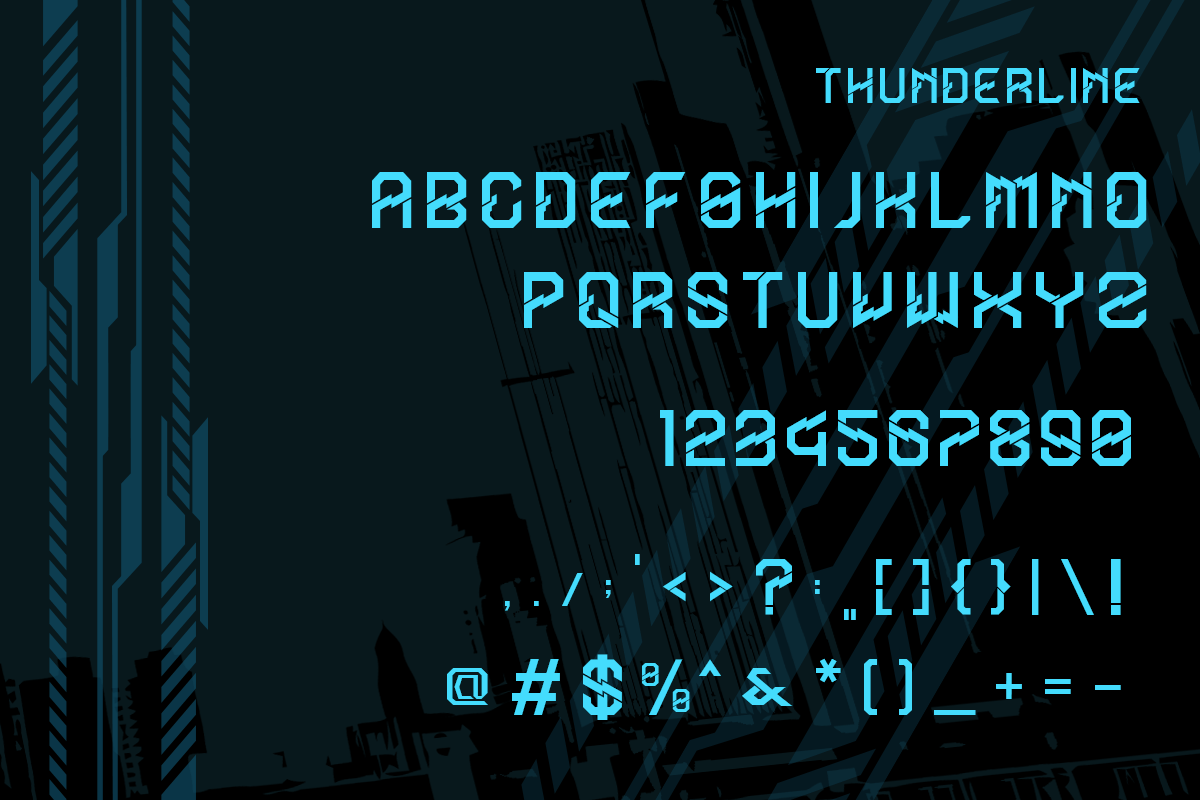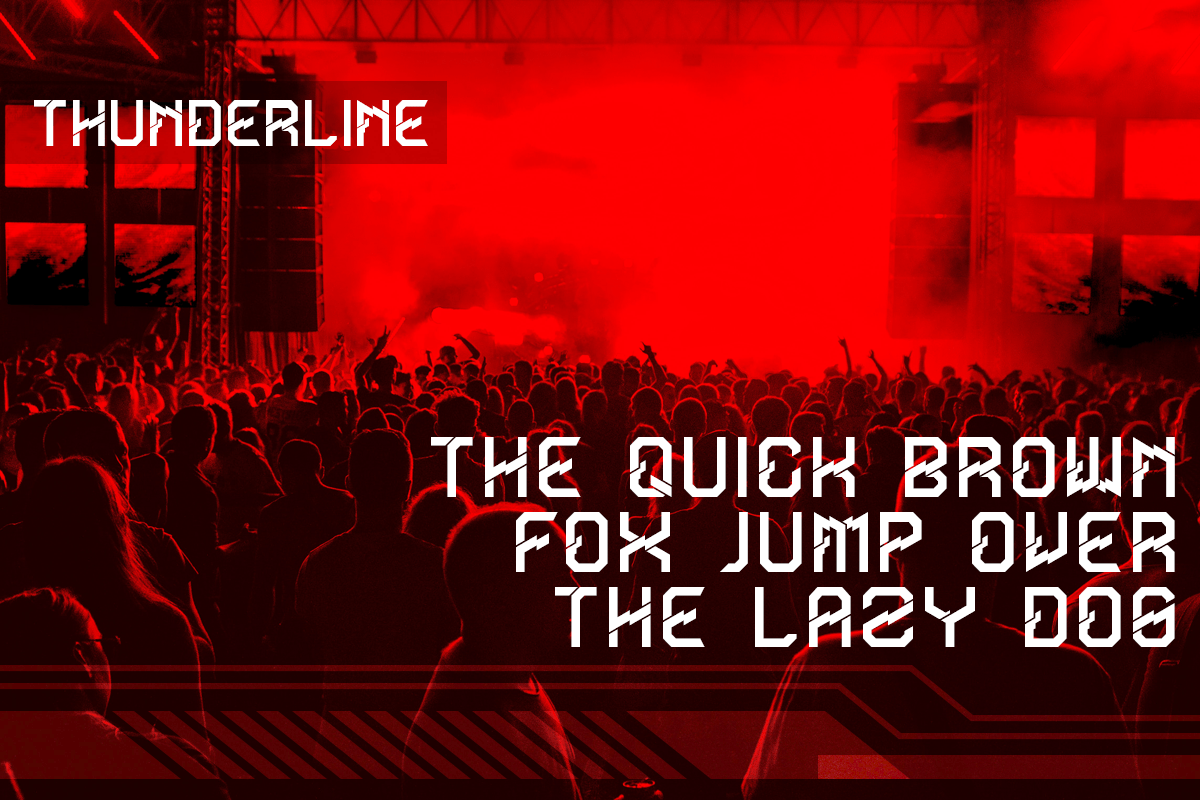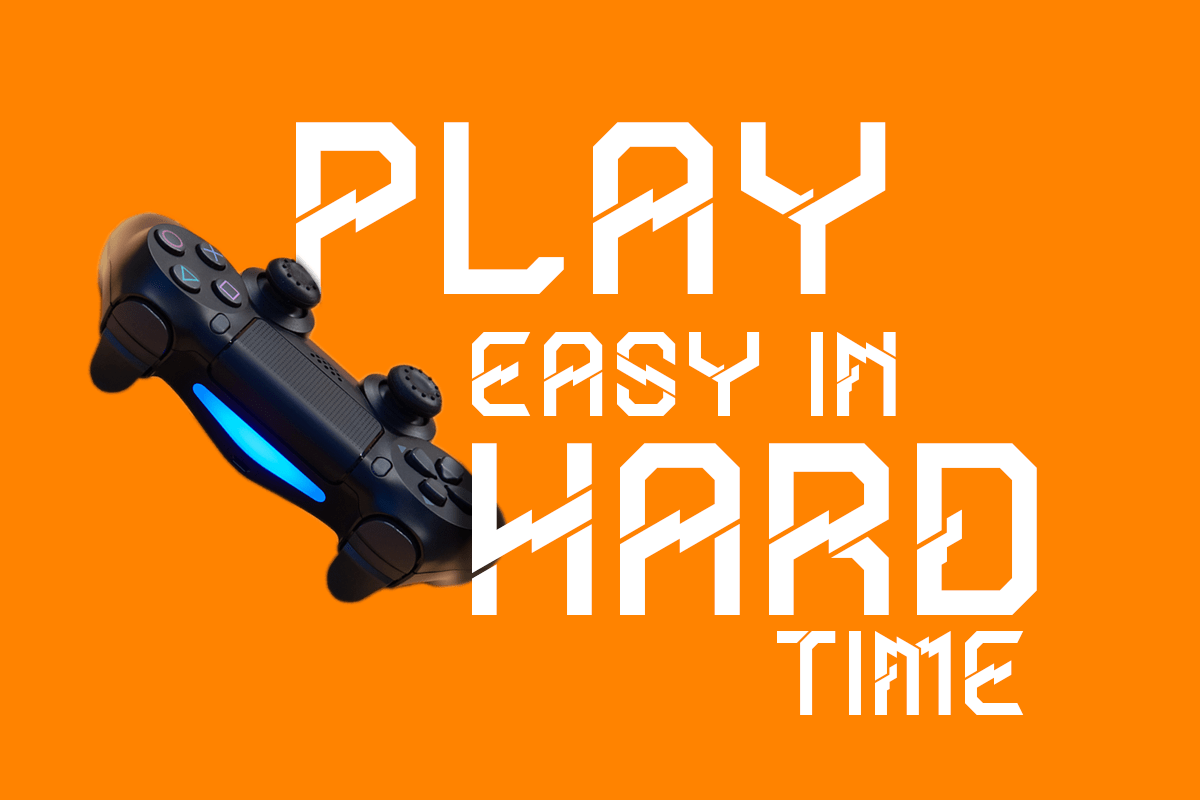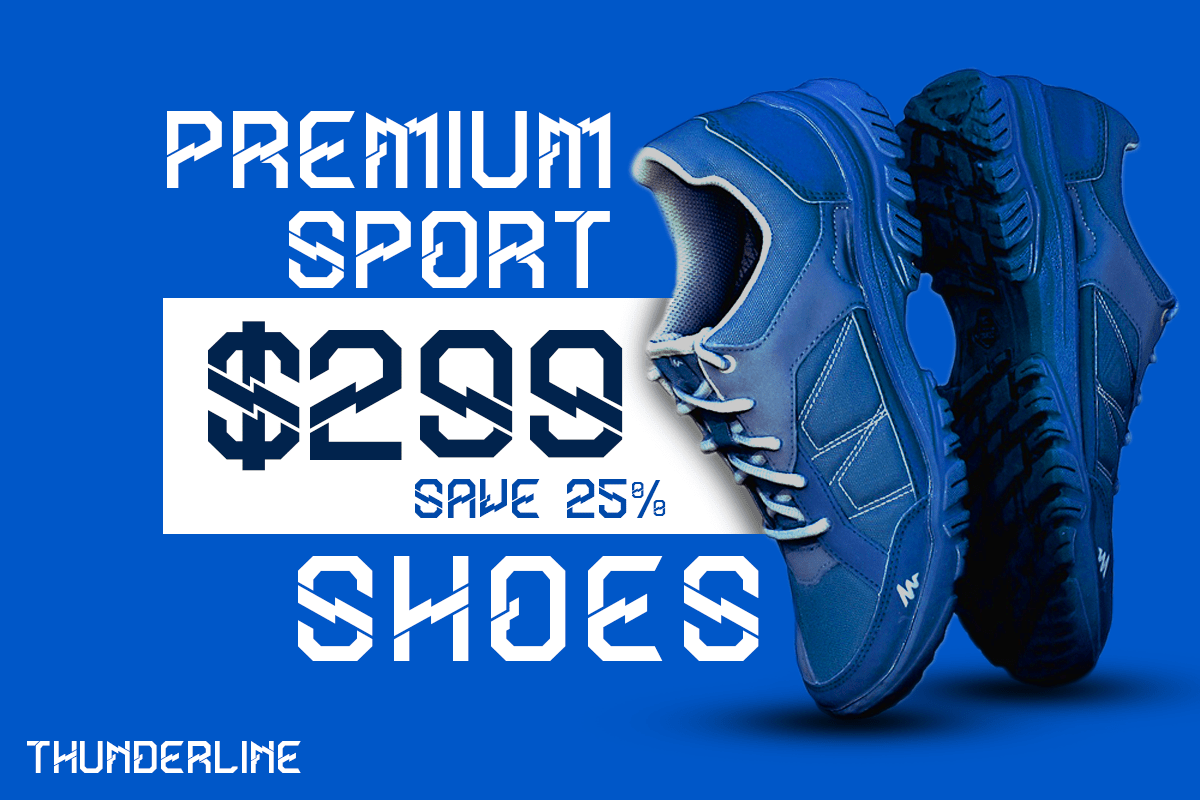
Thunderline Font
Thunderline Display Font
It’s a cool and neat looking display font. No matter the topic, this font will be an incredibly asset to your fonts’ library, as it has the potential to elevate any creation.
Thunderline  font can be used in different purposes: logo and branding, poster, product packaging, advertising, invitations, port apparel, game industry, movie and any typography design projects.